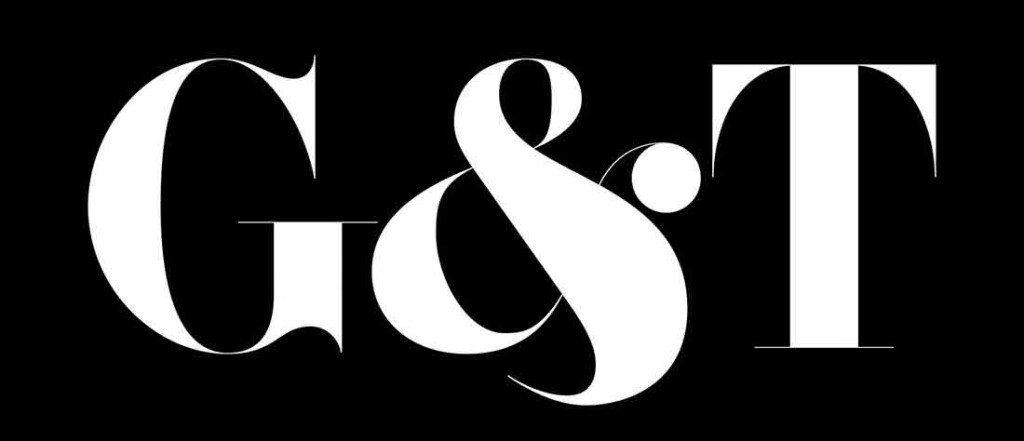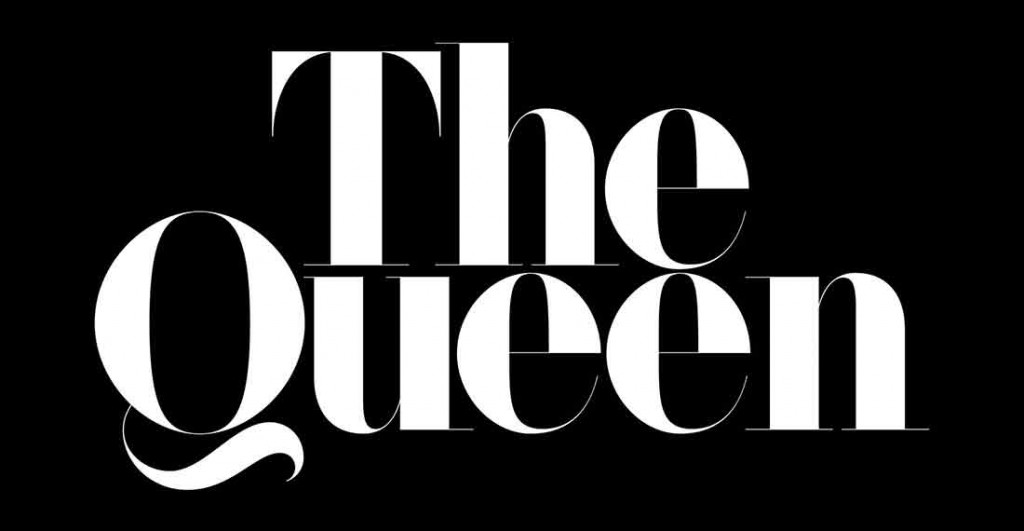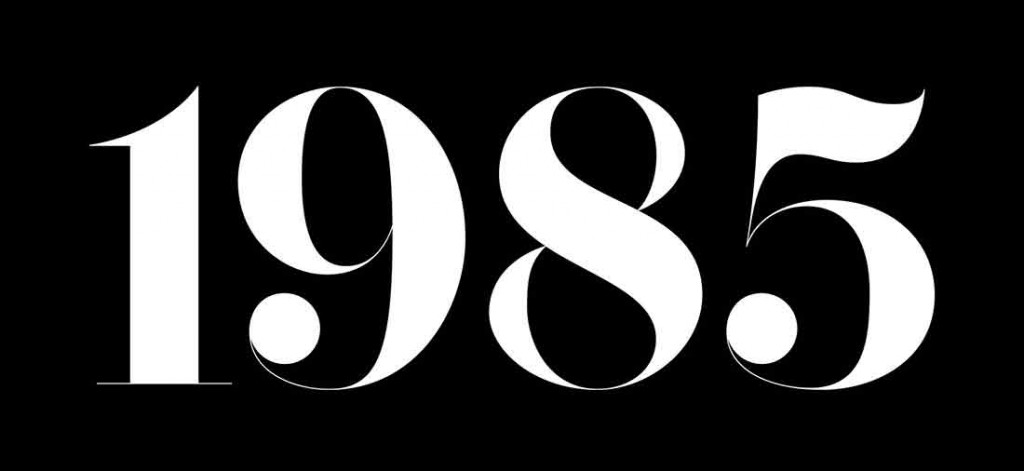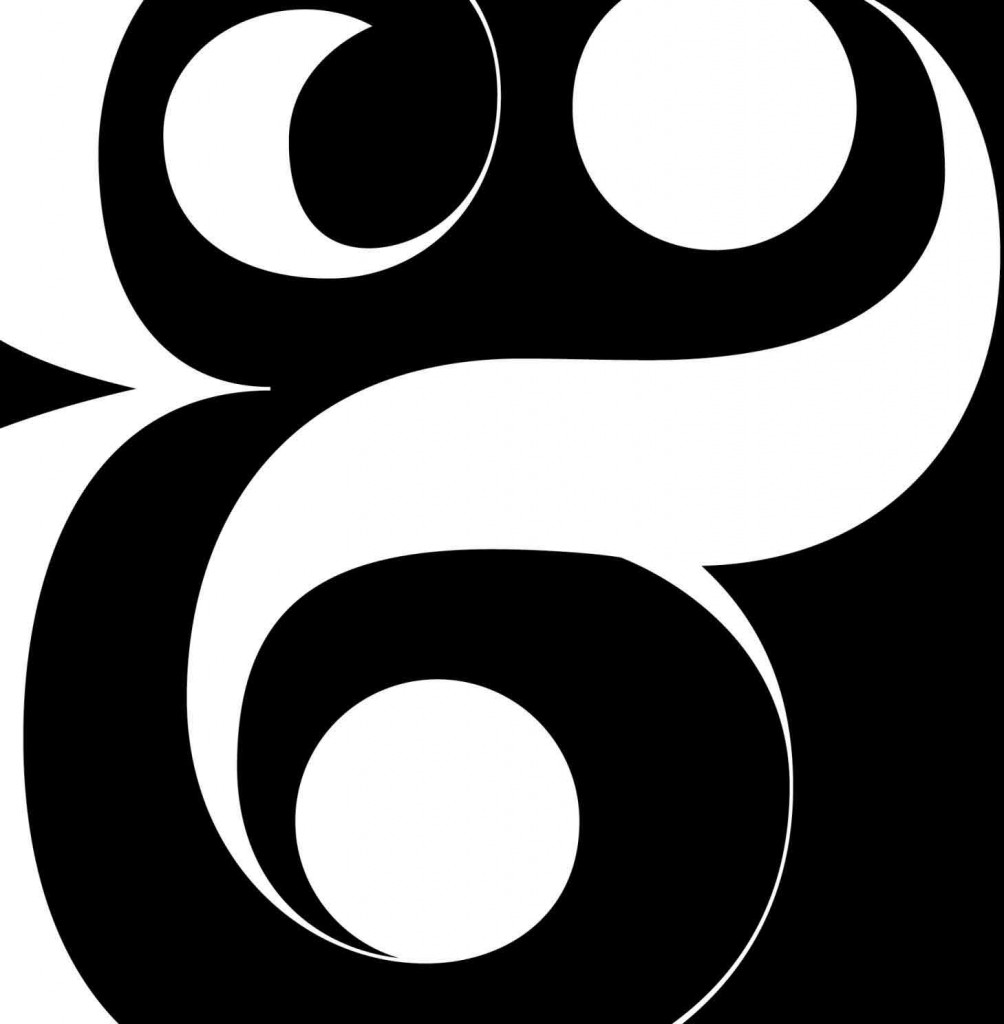
Name: Bella
Designer: Rick Banks
Release date: 2012
Back story: Designer Rick Banks of the London design studio Face37 created Bella as a riff on the classic French typeface, Didot, with lush rounded contours and a shift in overall geometry that we think increases the sex appeal. It’s based on the work of renowned typographers, America’s John Pistilli and Herb Lubalin, and Switzerland’s Jan Tschichold. Bella received the 2012 TDC Tokyo Award.
Why’s it called Bella? Banks says, “It’s named after my beautiful wife Annabel and I think the name matches the font quite well.”
What are its distinguishing characteristics? Voluptuous curves paired with ultra thin serifs, plus some charming ball terminal alternatives in the uppercase library that mirror the terminals on the lowercase alphabet and numerals. “Tschichold’s Saskia inspired Bella’s perfect circular terminals,” says Banks. “Pistilli and Lubalin’s typeface called Pistilli Roman inspired many of Bella’s other forms, especially the very fine hairlines.”
What should I use it for? Bella is fantastic for headlines or other display uses; the whisper-weight serifs vanish at small sizes.
Who’s it friends with? Understated sans serif typefaces like Futura work well with Bella, as does F37Ginger.